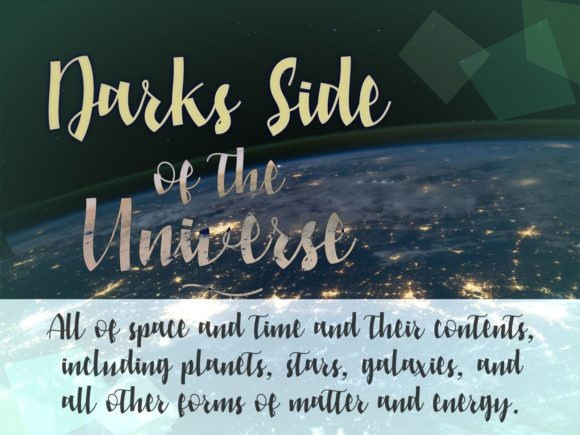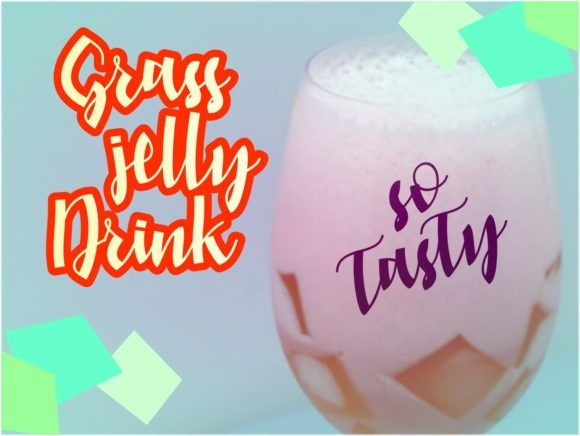
Squirel Boys Handwritten Font
Squirel Boys Font is a minimal handwritten font. Squirel Boys will be great for any projects including : branding, logo, stationery, business card, signage, flyer, brochure etc.